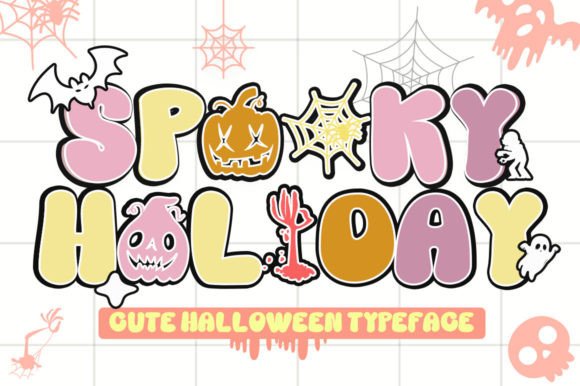
Venture into the realm of the macabre and let Spooky Holiday Font cast its enchanting spell on your creative endeavors. This decorative font, conjured by the skilled hands of IM Studio, is a visual symphony of boldness and spookiness, presenting letters that dance with a playful yet chilling charm.
Transport yourself to a world of Halloween magic, where Spooky Holiday Font adds a spine-tingling flair to your craft projects. Carve it into pumpkins, adorn it on banners, or let it haunt your invitations, creating an eerie ambiance that will send shivers down the spines of those who behold it.
Unleash your inner horror aficionado and let Spooky Holiday Font grace your movie posters, evoking the chilling atmosphere of classic horror films. Its distinct letters will make your designs scream with terror, leaving an unforgettable mark on the hearts of movie enthusiasts.
Step into the world of fashion and let Spooky Holiday Font work its wicked magic on your t-shirt designs. Its bold and playful style will add a touch of spooky chic to your wardrobe, making you the envy of all those who dare to embrace the darkness.
But Spooky Holiday Font's versatility extends far beyond the realm of Halloween and horror. Its captivating letters lend themselves effortlessly to a myriad of creative projects, from whimsical greeting cards to eye-catching social media posts. Its charm is boundless, ready to infuse any design with a touch of the supernatural.
With Spooky Holiday Font, you hold the key to unlocking a world of creative possibilities, where imagination knows no bounds. Its bold and spooky style will leave an indelible mark on your designs, captivating audiences with its eerie elegance. Embrace the darkness, let your creativity run wild, and experience the magic of Spooky Holiday Font.